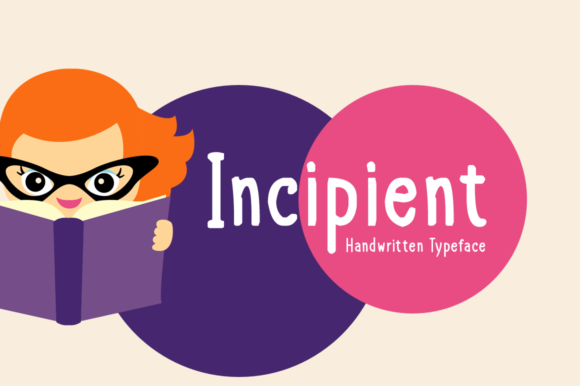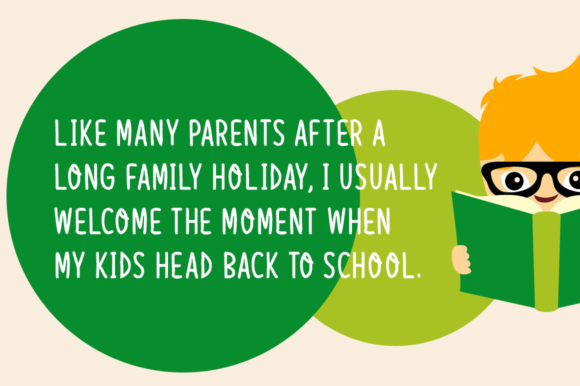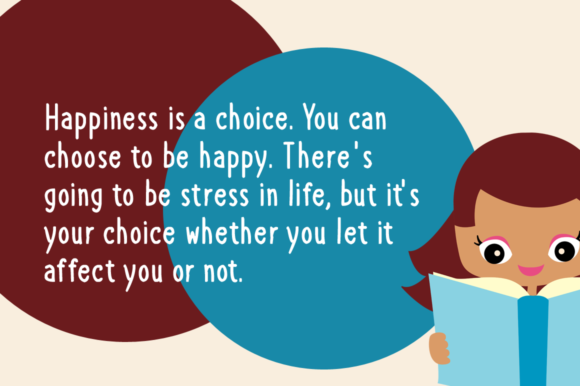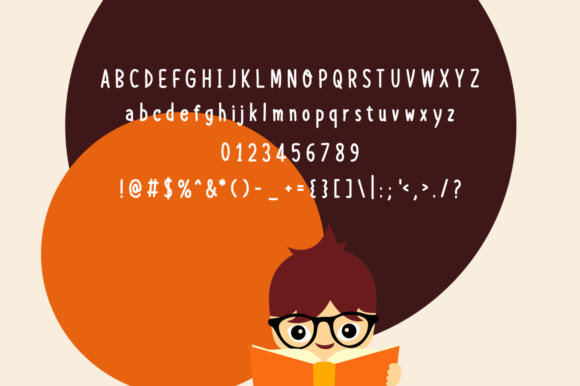
Incipient Font
About Incipient Font
Incipient is a great script font. It will look outstanding in any context, whether it’s being used on busy backgrounds or as a standalone headline!
Make your project better by using this lovely font.